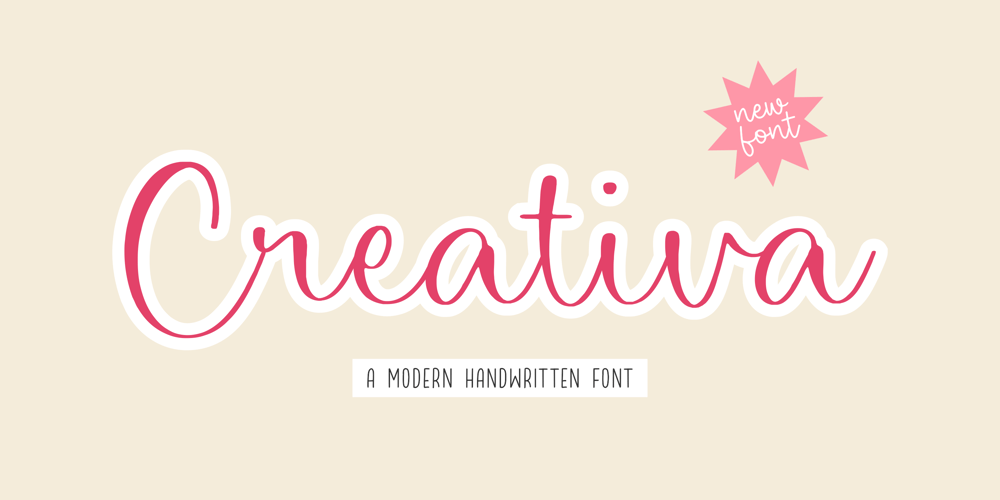
Creativa
Creativa font
Creativa Font Family was designed by Restu Angga and published by Balpirick. Creativa contains 1 styles and family package options. Creativa is a Modern Handwritten Font.Whether you’re using it for crafts, digital design, presentations, or making greeting cards, this font has the potential to become your favorite go-to font, no matter the occasion! – also multilingual supportEnjoy the font! Feel free to comment or feedback!Thank you!